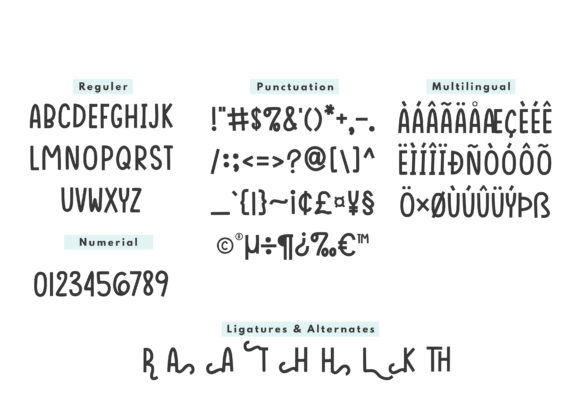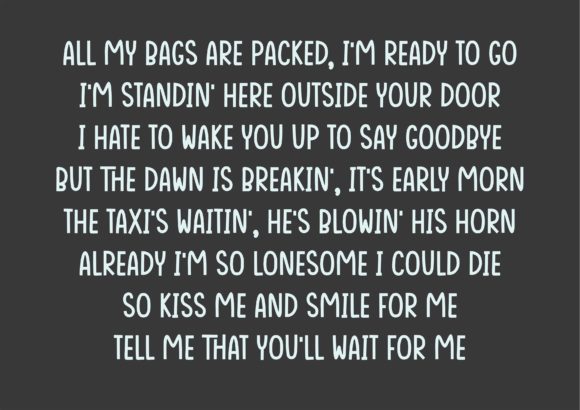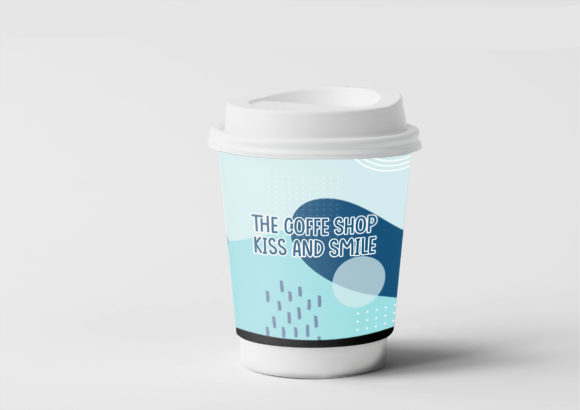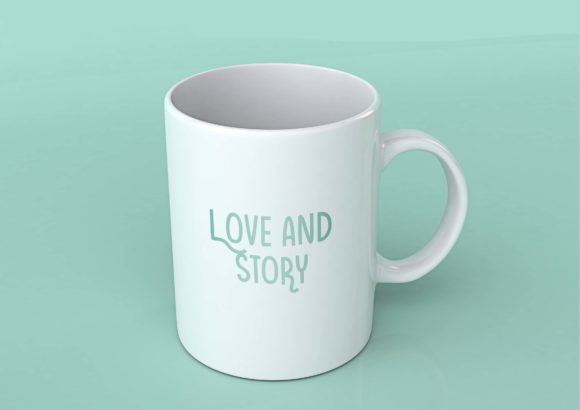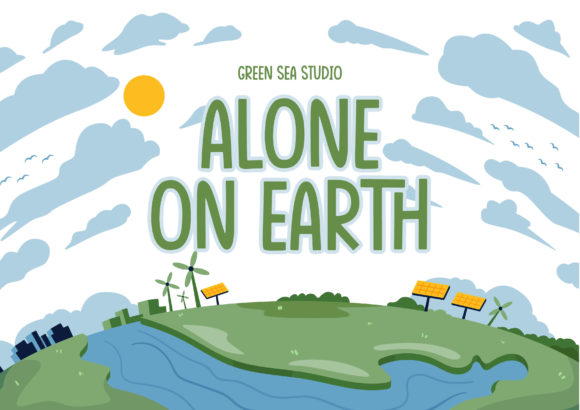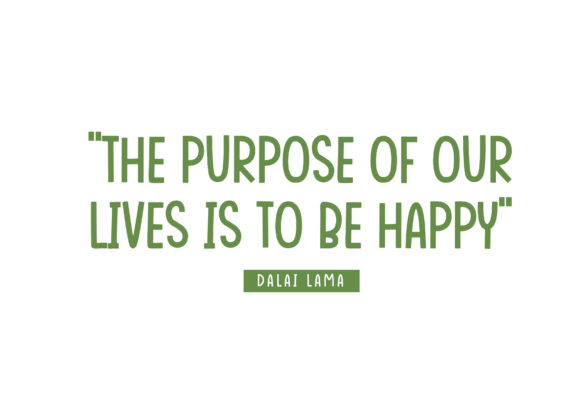
The Joy of Discovery: Finding the Perfect Font for Your Next Project
I still remember the time I was working on a project for a children’s book, and I was on a mission to find the perfect font. I had a vision of something fun, quirky, and playful, but I just couldn’t seem to find it. That was until I stumbled upon the Alone On Earth Font. It was like a breath of fresh air – the perfect blend of whimsy and charm that immediately captured the essence of my project.
An Honest Review of Alone On Earth Font
So, what makes the Alone On Earth Font so special? Let’s dive into the good stuff and a few quirks I’ve discovered.
• ✨ Super fun and quirky design: This font is perfect for child-related projects, cute quotes, and more.
• ✅ Child-themed sans serif typeface: The Alone On Earth Font is designed with kids in mind, making it ideal for projects that require a playful touch.
• 🌈 Vibrant and energetic feel: This font is sure to add a pop of color and excitement to any project.
While the Alone On Earth Font is amazing, there are a few things to keep in mind:
• ⚠️ Limited use in formal projects: Due to its playful nature, this font might not be the best choice for formal or professional projects.
• 🤔 Some characters may require adjustment: As with any font, you might need to adjust some characters to get the perfect fit.
The Designer Inspiration Behind Alone On Earth Font
The story behind Alone On Earth Font is one of creativity and inspiration. According to the designer, the font was created with the intention of capturing the magic of childhood – a time of wonder, curiosity, and playfulness. The designer wanted to create a font that would evoke feelings of joy and happiness, making it perfect for projects that require a touch of whimsy.
Q: What type of projects is Alone On Earth Font best suited for?
A: Alone On Earth Font is perfect for child-related projects, cute quotes, educational materials, and any project that requires a playful touch.